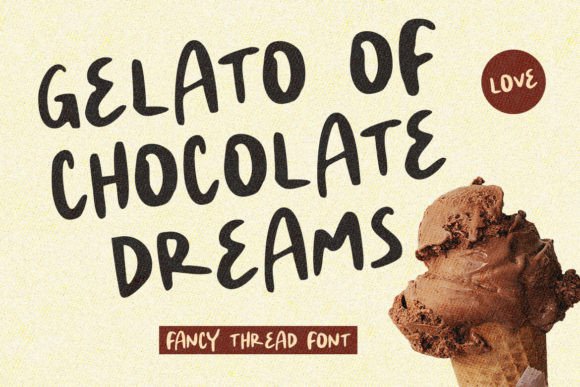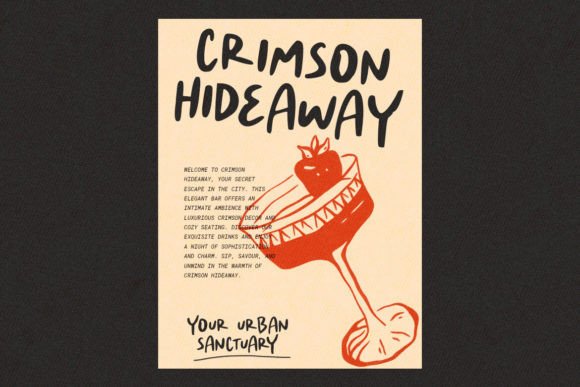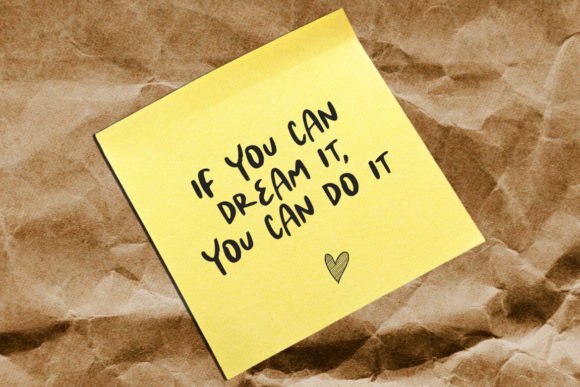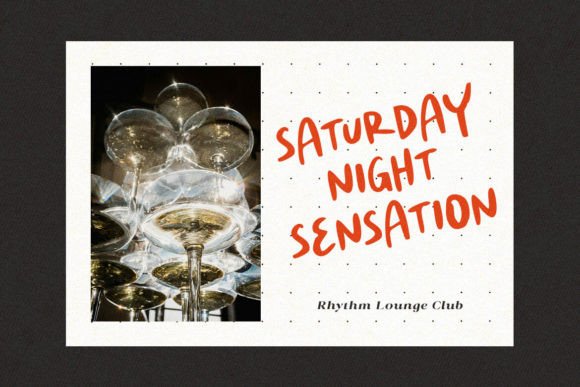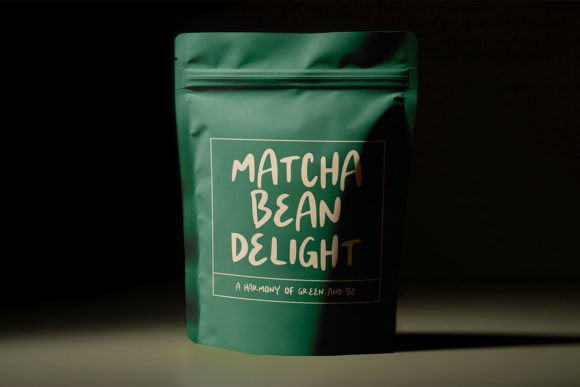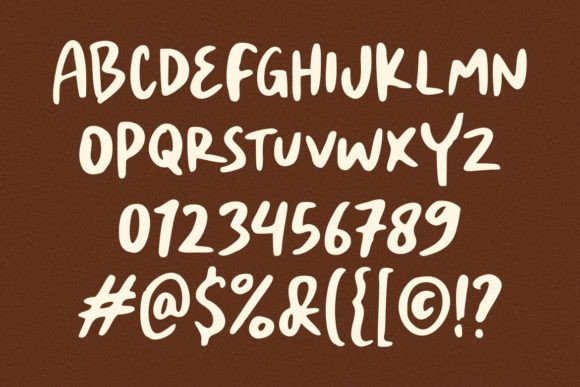
Fancy Thread Font: Adding a Touch of Whimsy to Your Designs
In the world of typography, fonts play a crucial role in conveying the tone and personality of a design. For designers and crafters looking to add a dash of playfulness and creativity to their projects, the Fancy Thread font is an excellent choice. This charming handwritten font is designed to capture the essence of whimsy and delight, making it perfect for a wide range of applications, from quotes and posters to branding and more.
The Charm of Fancy Thread
Fancy Thread is a beautifully crafted handwritten font that exudes a sense of joy and playfulness. Its unique, charming strokes bring a touch of personality to any design, making it stand out from the crowd. The font’s whimsical nature makes it an excellent choice for designers looking to create eye-catching and memorable projects that capture the imagination of their audience.
Key Features of Fancy Thread
- Whimsical Handwritten Style: Fancy Thread boasts a delightful, handwritten style that adds a personal touch to any design.
- Playful Spirit: The font’s playful spirit makes it perfect for projects that require a dash of creativity and fun.
- Versatility: Fancy Thread is a versatile font that can be used for a wide range of applications, from quotes and posters to branding and more.
- Unique Personality: The font’s charming strokes bring a unique personality to any design, making it stand out from the crowd.
Uses for Fancy Thread
Fancy Thread is an incredibly versatile font that can be used in a variety of contexts. Here are some ideas to get you started:
- Quotes and Posters: Add a touch of whimsy to your quotes and posters with Fancy Thread’s playful, handwritten style.
- Branding: Use Fancy Thread to create a unique and memorable brand identity that stands out from the crowd.
- Stationery and Invitations: Add a personal touch to your stationery and invitations with Fancy Thread’s charming strokes.
- Digital Media: Use Fancy Thread in your digital media projects, such as social media graphics, blog posts, and more.
Tips for Using Fancy Thread
To get the most out of Fancy Thread, here are some tips to keep in mind:
- Experiment with Colors: Fancy Thread looks great in a variety of colors, so don’t be afraid to experiment and find the perfect hue for your design.
- Mix and Match: Combine Fancy Thread with other fonts to create a unique and visually appealing design.
- Keep it Simple: Don’t overcomplicate your design – Fancy Thread’s playful style can shine on its own.
In conclusion, Fancy Thread is a delightful handwritten font that adds a touch of whimsy and playfulness to any design. Its unique personality and versatility make it perfect for a wide range of applications, from quotes and posters to branding and more. Whether you’re a designer or crafter, Fancy Thread is an excellent choice for anyone looking to add a dash of creativity and fun to their projects.